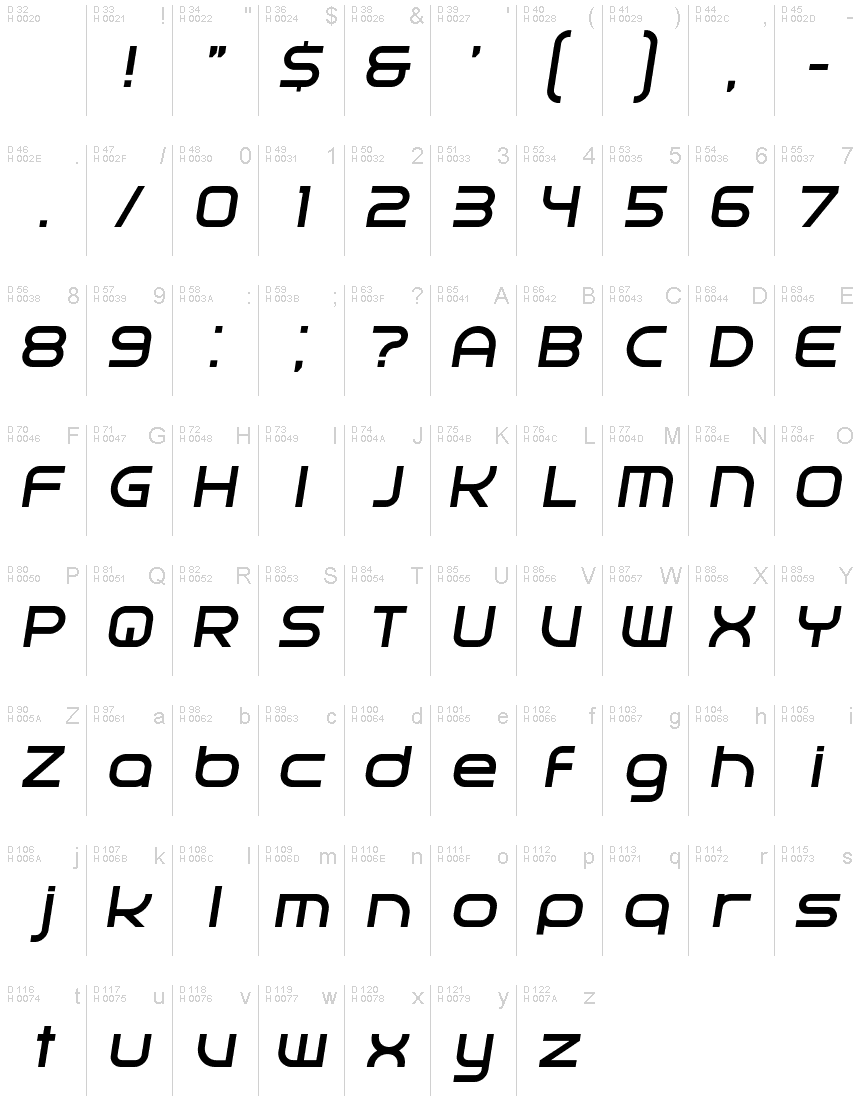
Essen Italic
Essen Italic is a wide, sans serif font designed by Vladimir Nikolic. Its basic type and style make it ideal for projects requiring an elegant yet simple look, such as logos, posters and web designs.